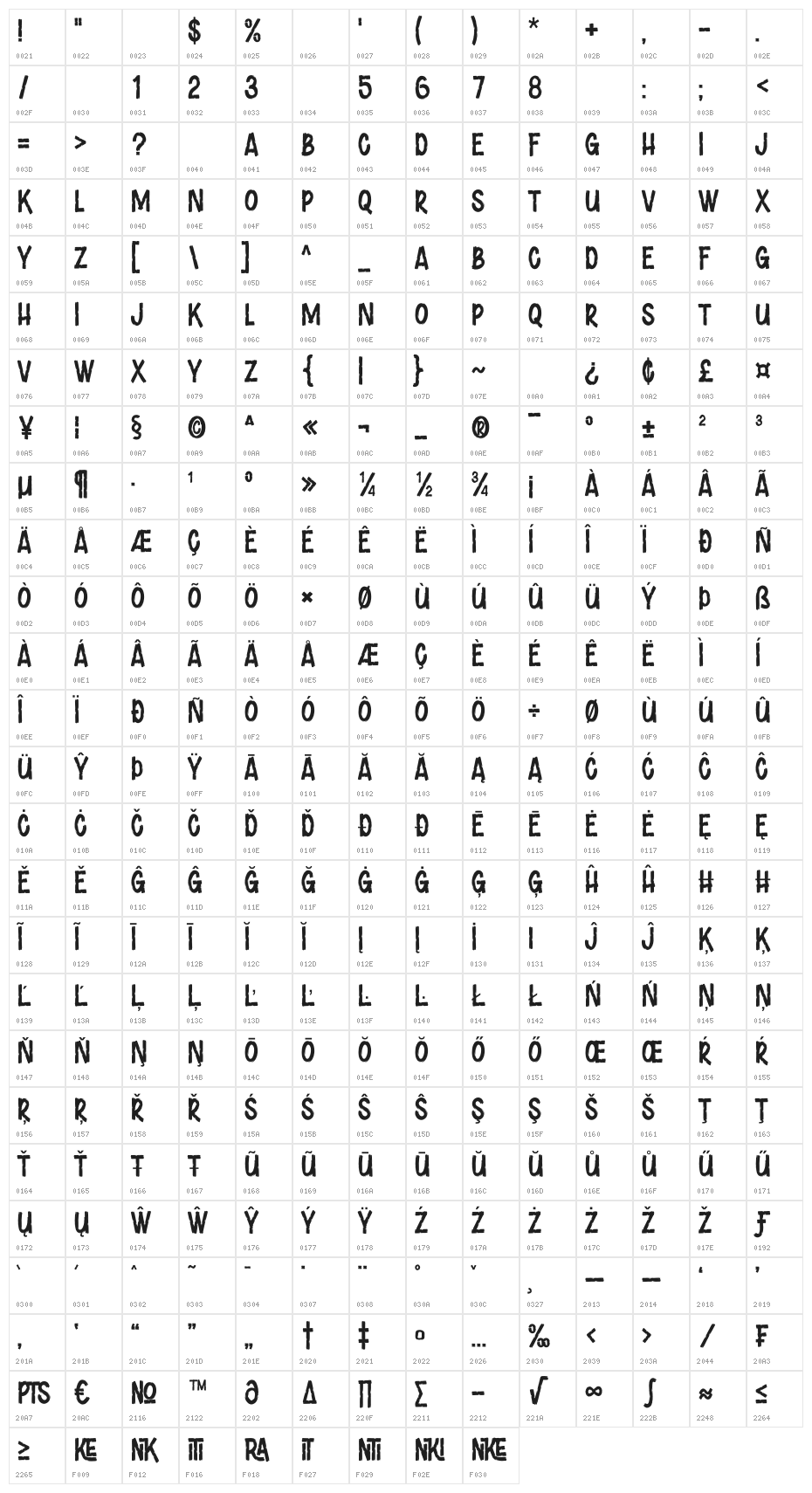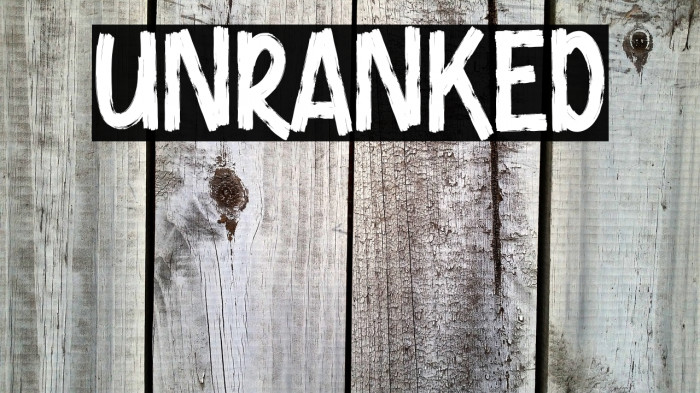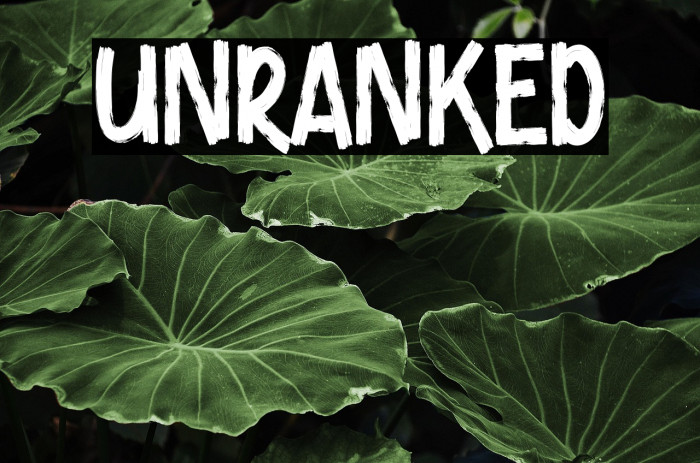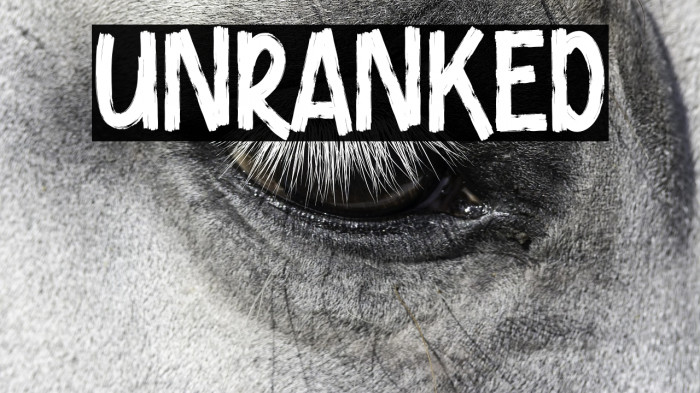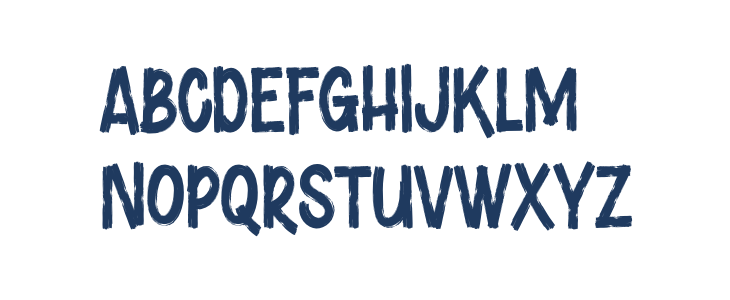
Unranked Font
Unranked Description
This font features a bold, hand-drawn style with a rough, textured appearance, reminiscent of brush strokes. The uppercase letters are prominent and dynamic, conveying a sense of energy and movement. The numbers and special characters maintain the same bold and expressive quality, making them stand out. The overall design is informal yet impactful, suitable for creative and artistic projects. The font's unique style adds a personal touch, making it ideal for designs that require a handcrafted feel.
| Proposed Projects | Ideal for posters, album covers, artistic branding, and creative social media graphics. |